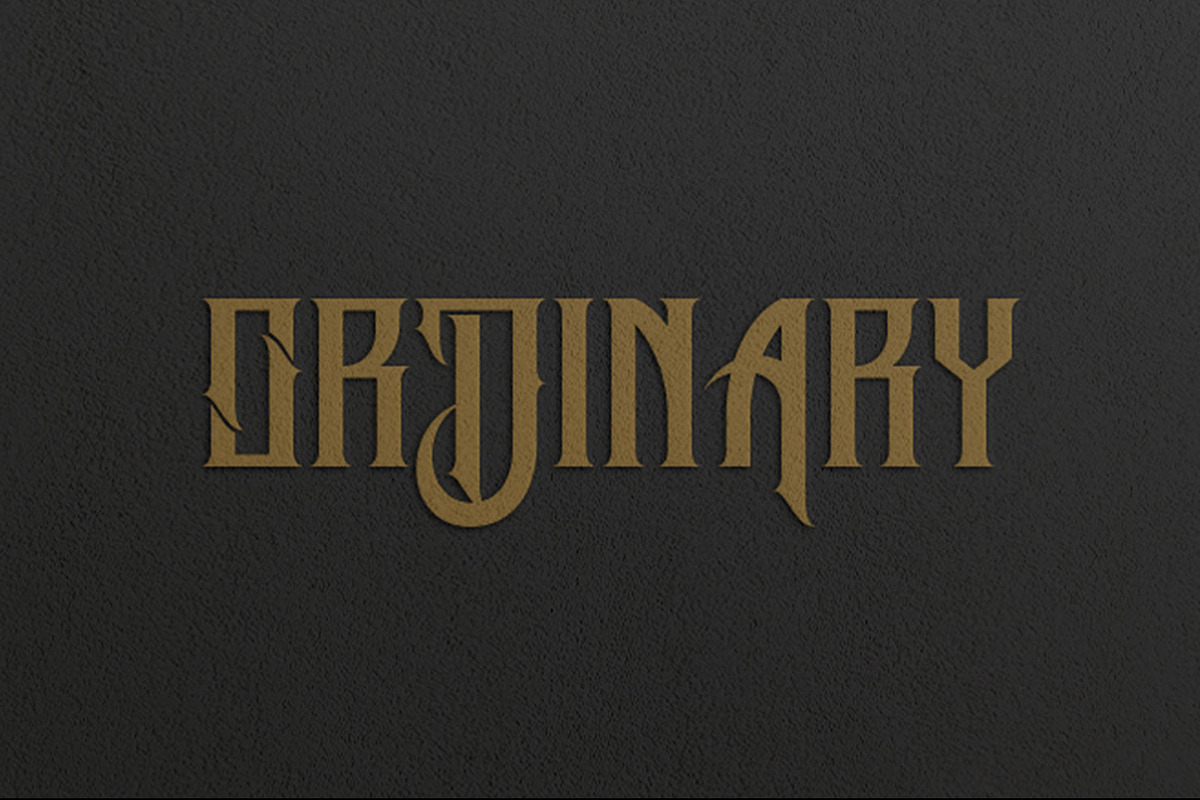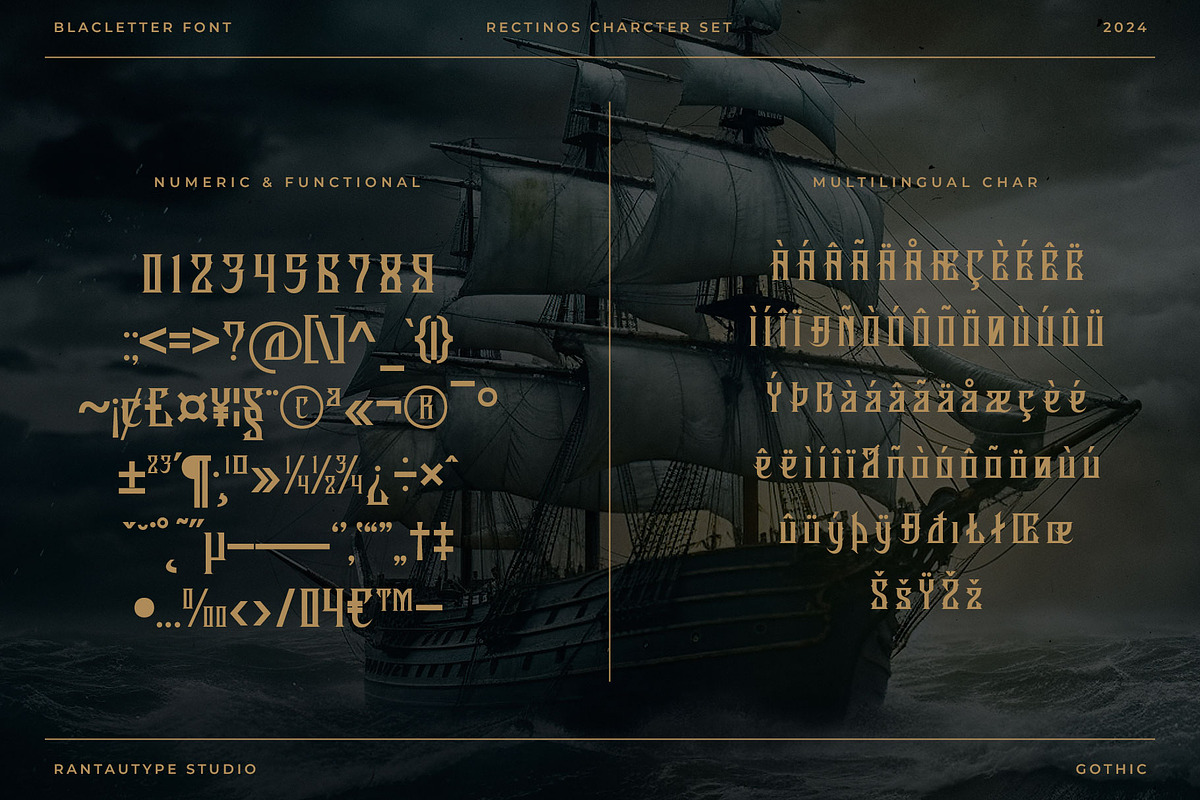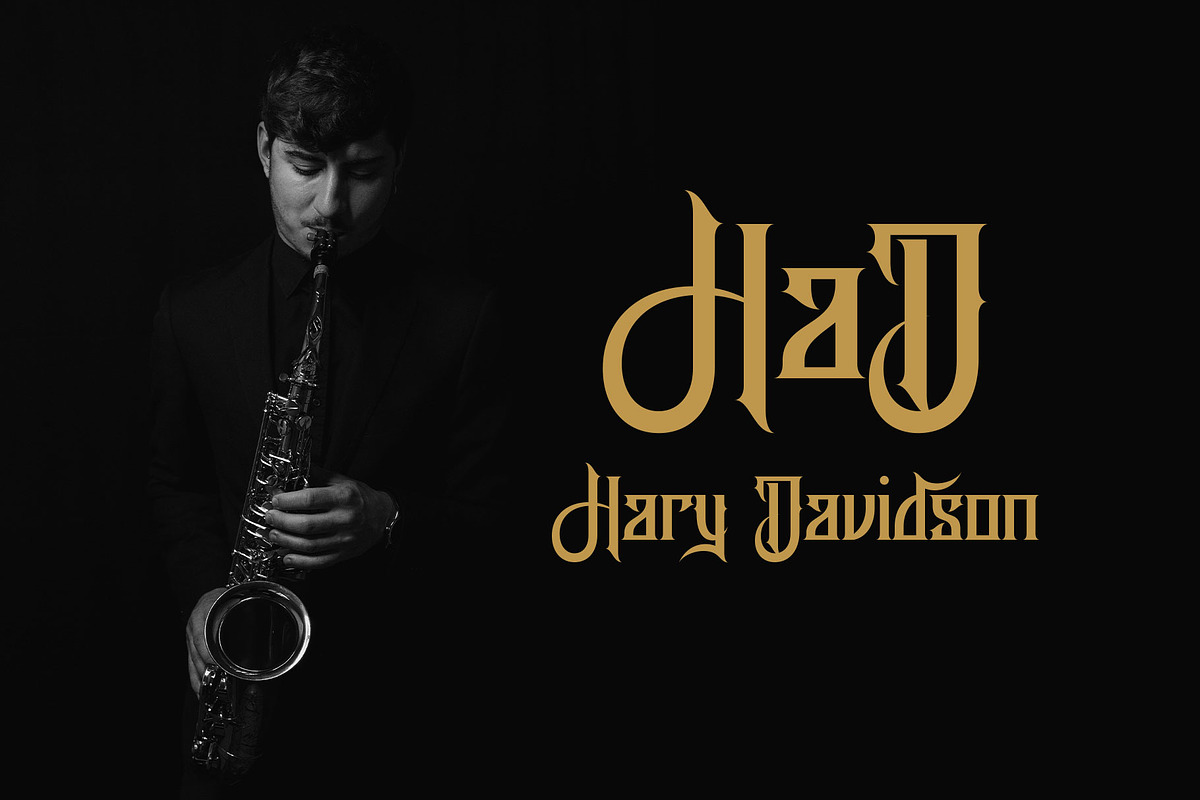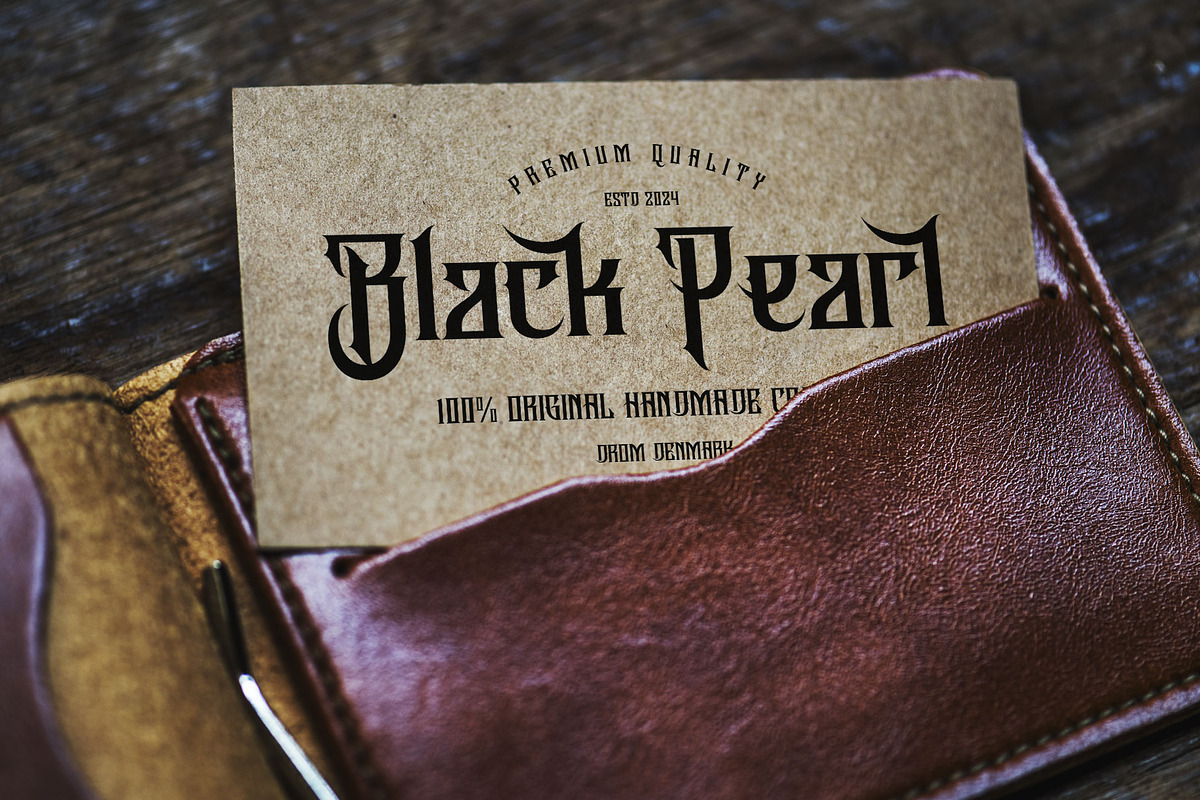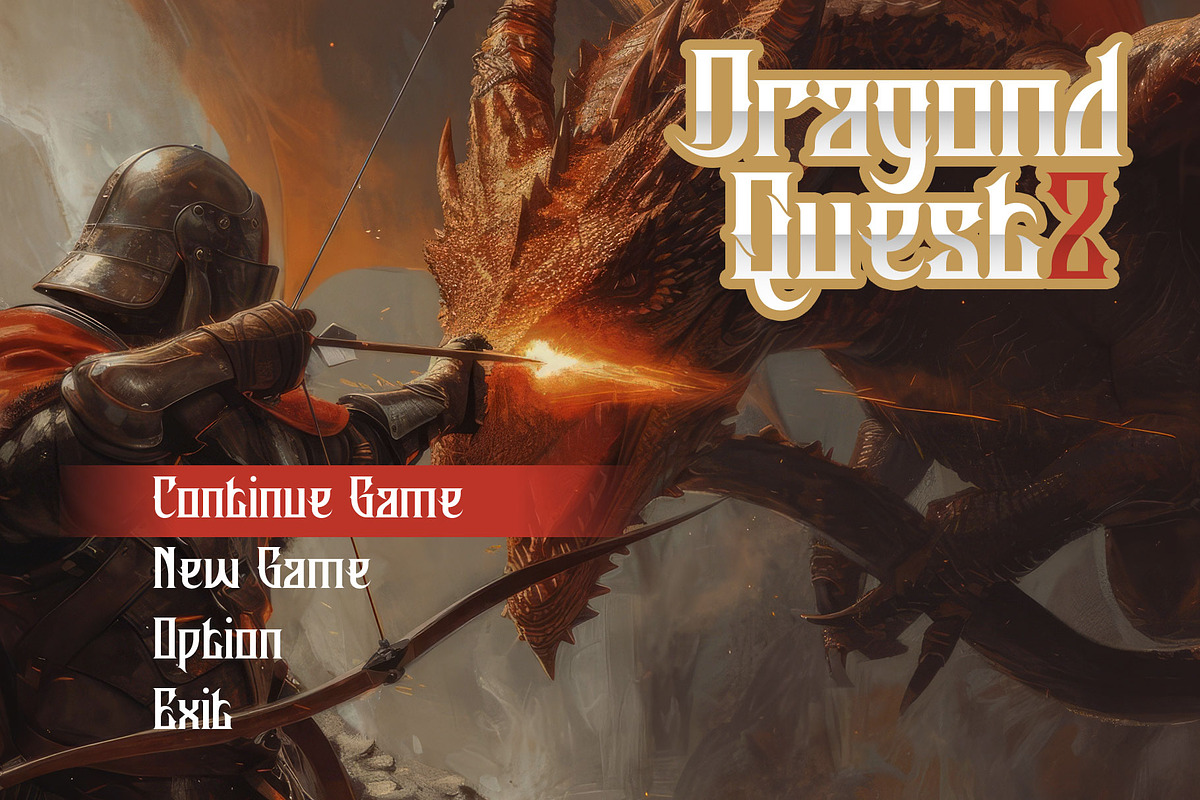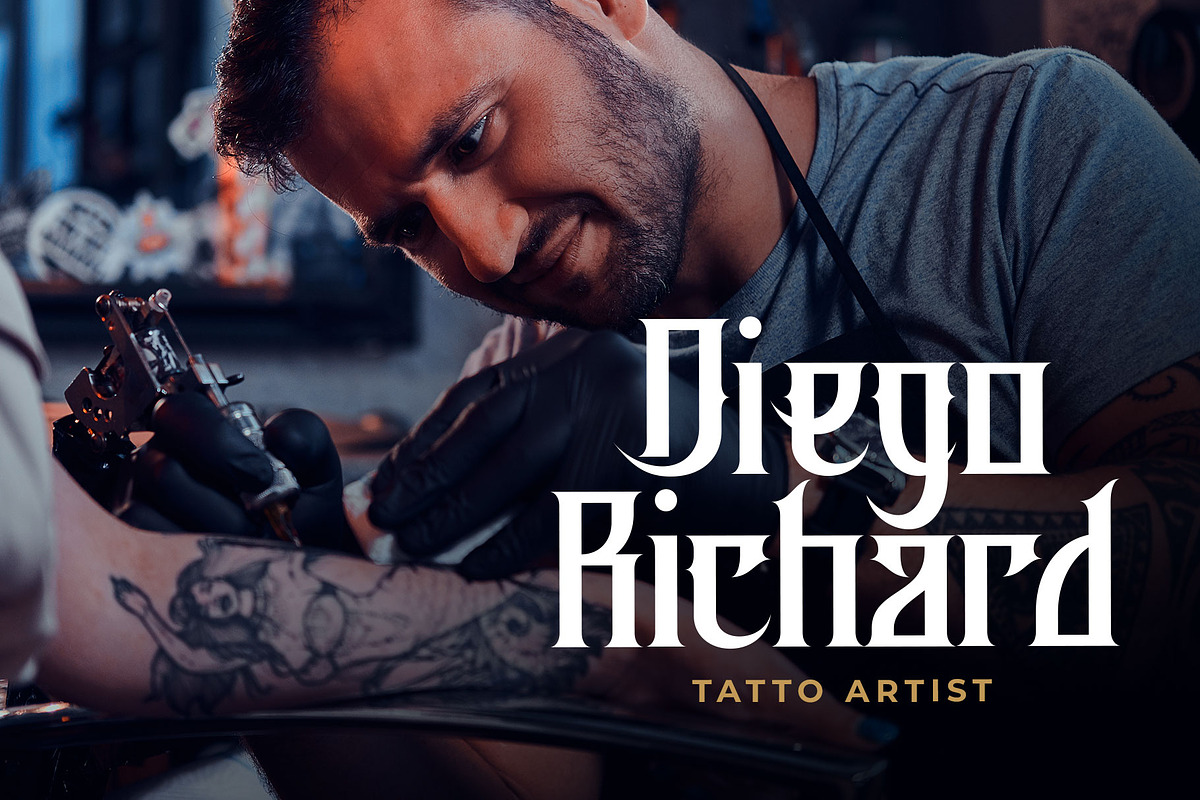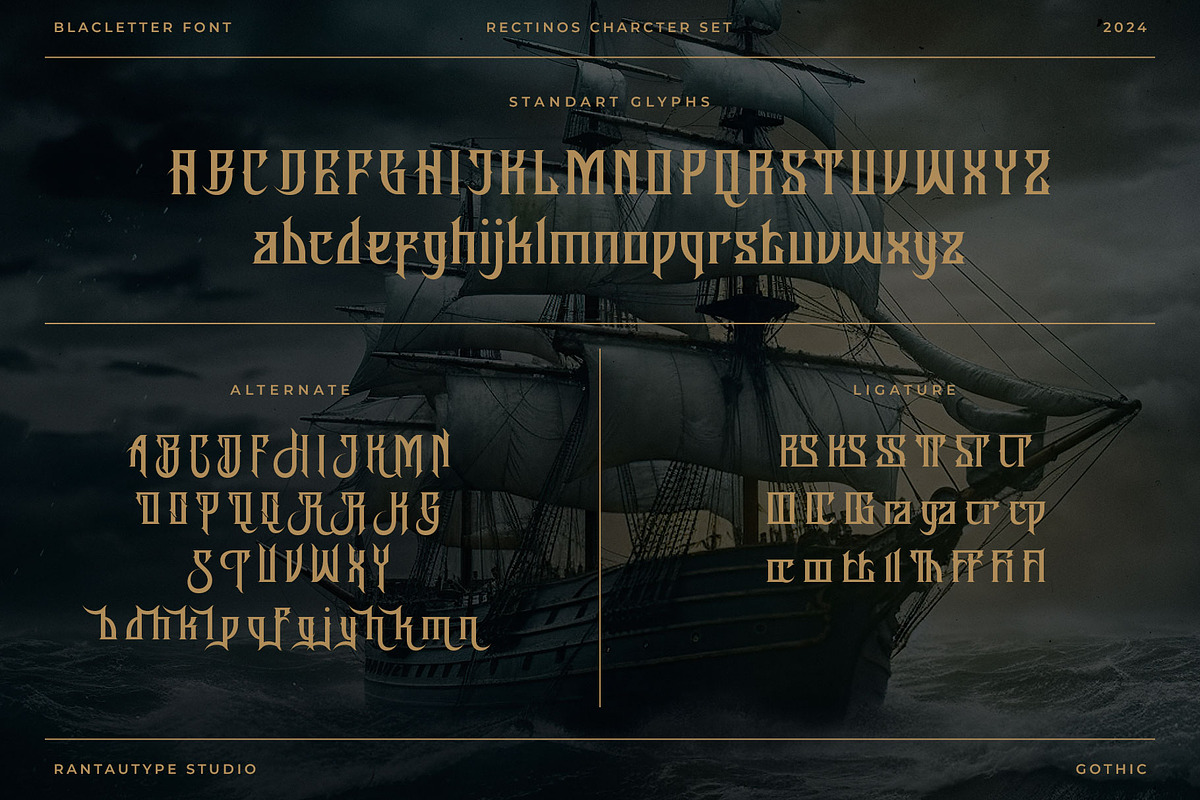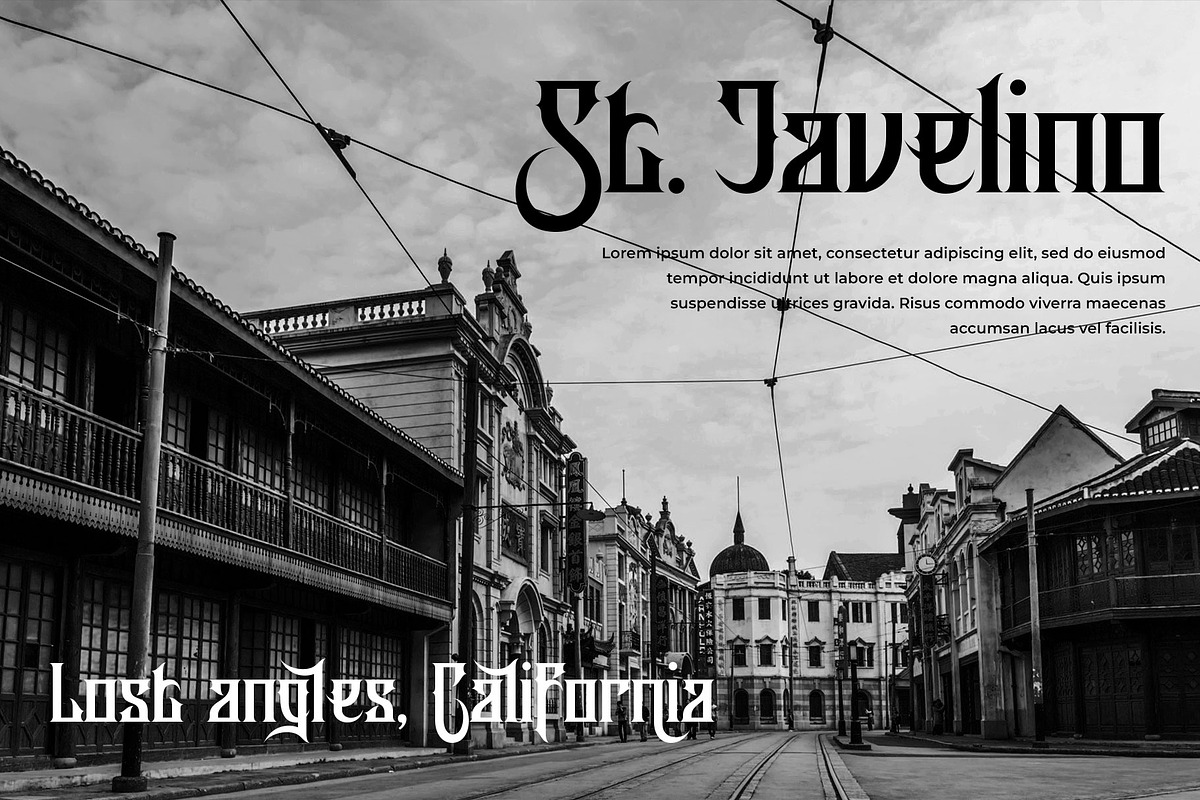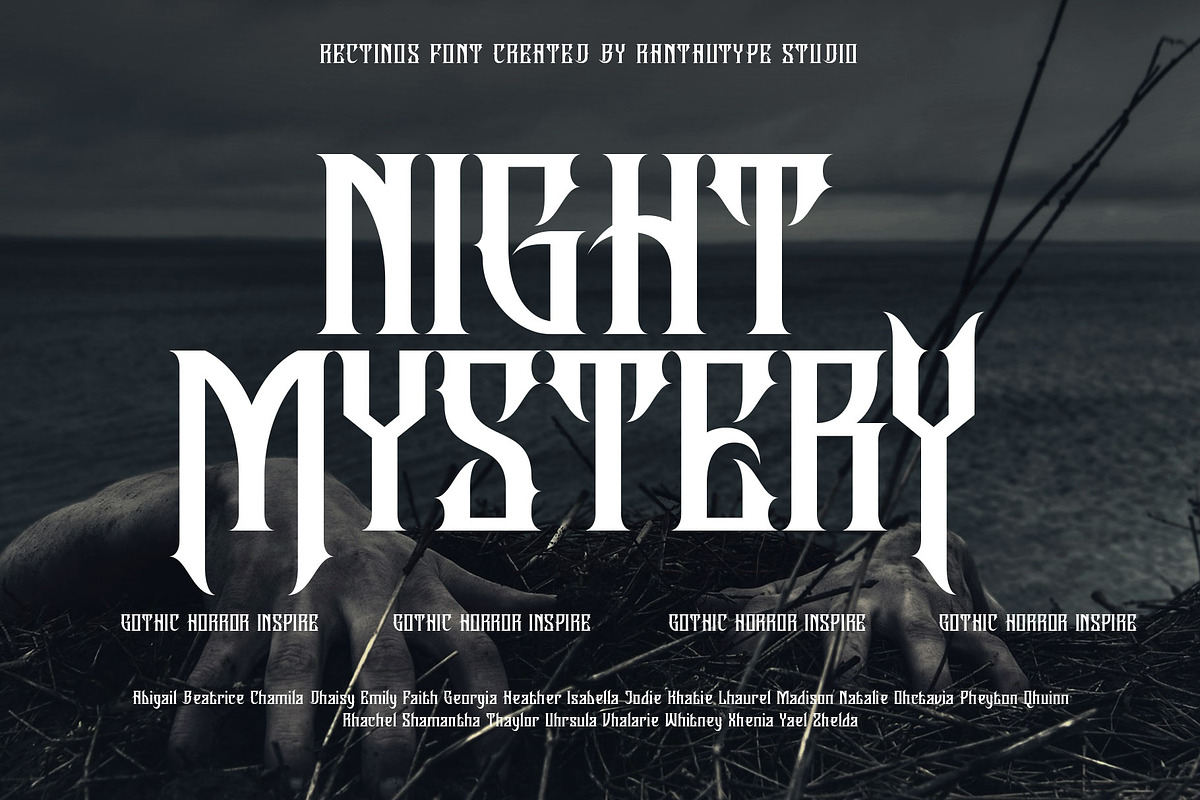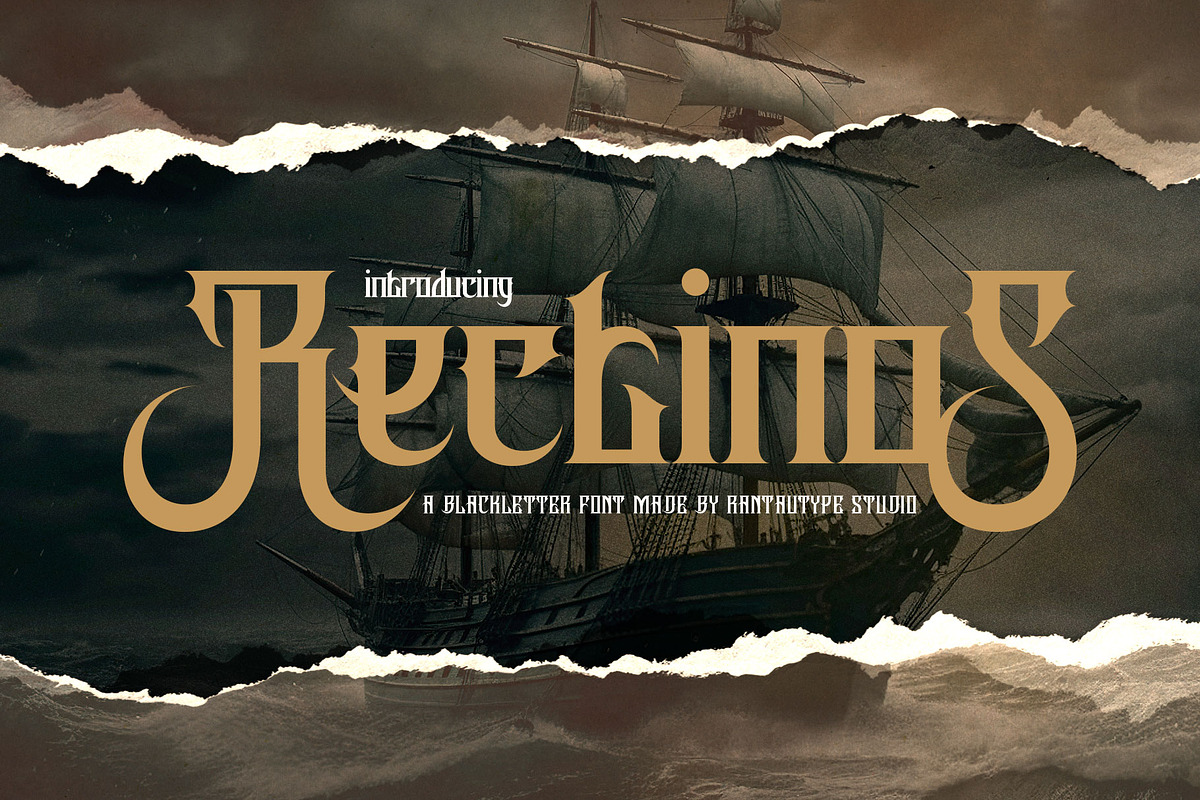
Rectinos A Blackletter Font
Rectinos is blackletter font with gothic style. Rectinos bring sharp, modern and minimalistic look to inspire you to create something strong and vintage.
Rectinos is a perfectly choice for any creative endeavor, lifestyle design such as logos, advertisements, stationery, branding project, display and magazine, invitation, corporate brand, product design, label, business project and many other project with vintage or gothic touch.
- Standart Glyphs
- Alternate and Ligature
Fonts include Multilingual Character for: Afrikaans, Albanian, Asu, Basque, Bemba, Bena, Breton, Chiga, Cornish, Dutch, English, Estonian, Filipino, Finnish, Friulian, Galician, Gusii, Indonesian, Irish, Italian, Kabuverdianu, Kalenjin, Kinyarwanda, Luo, Luxembourgish, Luyia, Machame, Makhuwa-Meetto, Makonde, Malagasy, Manx, Morisyen, North, Ndebele, Nyankole, Oromo, Portuguese, Quechua, Romansh, Rombo, Rundi, Rwa, Samburu, Sango, Sangu, Scottish, Gaelic, Sena, Shambala, Shona, Soga, Somali, Spanish, Swahili, Swedish, Swiss, German.